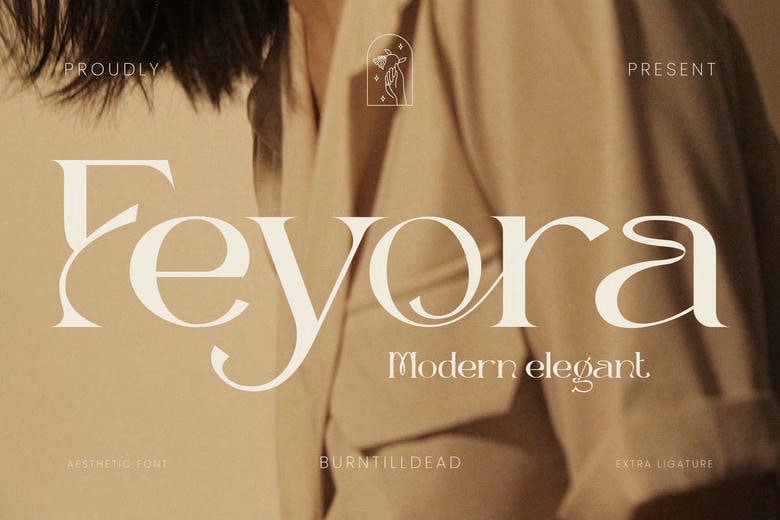
Feyora Font
Introducing Feyora, where timeless elegance meet modern design. This font is a modern elegant font combines contemporary design elements with timeless sophistication. Feyora feature the clean lines, balanced proportions, and a refined aesthetic that exudes luxury and class.
Feyora perfect for high-end branding, fashion magazines, wedding invitations, and any project that requires a touch of elegance and modernity.